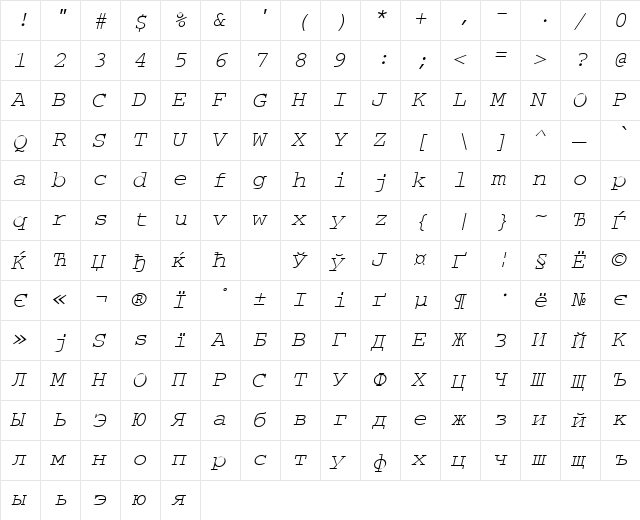
CourierTM Italic
Design Context for CourierTM Typeface
CourierTM brings the precise, column-aligned rhythm of monospaced typography to designs that value technical clarity and systematic order. Its italic angle brings a sense of urgency and motion to the letterforms.
Pro Tip: Use CourierTM with slightly increased line-height for extended reading — fixed-width spacing can feel dense in longer passages without extra breathing room.